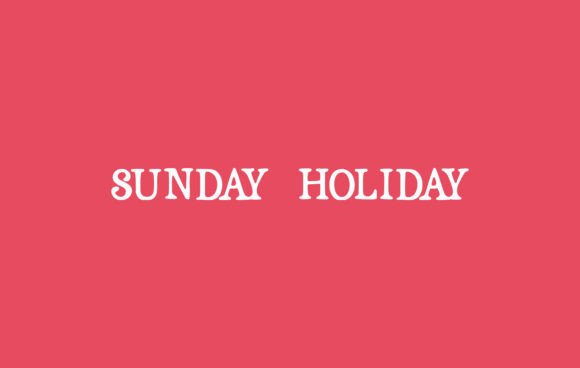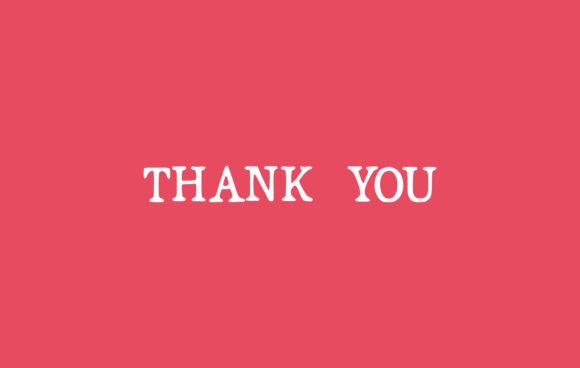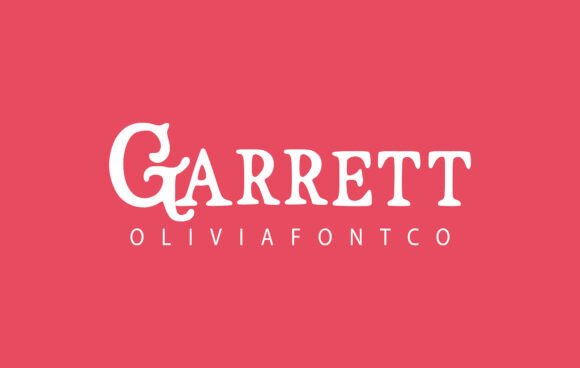
Introducing Garrett Font: The Perfect Serif Font for Creative Projects
Are you a designer or crafter looking for a font that can elevate your creative ideas to new heights? Look no further than the Garrett font, an authentic serif font with a romantic touch that’s sure to become your new favorite. In this article, we’ll explore the features and benefits of the Garrett font, and show you how it can be used to take your designs to the next level.
What is Garrett Font?
Garrett font is a beautifully designed serif font that’s perfect for a wide range of creative projects. Its classic design and romantic touch make it ideal for designs that require a touch of elegance and sophistication. Whether you’re working on a magazine headline, social media post, branding campaign, wedding invitation, or card, Garrett font is the perfect choice.
Key Features of Garrett Font
So what makes Garrett font so special? Here are just a few of its key features:
- Legibility: Garrett font is designed to be highly legible, making it perfect for use as both title and body text.
- Elegant Design: The font’s classic serif design and romantic touch give it a timeless elegance that’s sure to impress.
- Versatility: Garrett font can be used for a wide range of creative projects, from magazine headlines and social media posts to branding campaigns and wedding invitations.
Benefits of Using Garrett Font
So why should you choose Garrett font for your next creative project? Here are just a few of the benefits of using this amazing font:
- Elevate Your Designs: With its elegant design and romantic touch, Garrett font can help take your designs to new heights and give them a professional finish.
- Save Time: Garrett font is highly legible and versatile, making it easy to use for a wide range of projects and saving you time and effort.
- Stand Out from the Crowd: With its unique and elegant design, Garrett font can help your designs stand out from the crowd and grab attention.
How to Use Garrett Font
So how can you use Garrett font in your creative projects? Here are a few ideas to get you started:
- Magazine Headlines: Use Garrett font to create eye-catching headlines for your magazine or blog posts.
- Social Media Posts: Add a touch of elegance to your social media posts with Garrett font.
- Branding Campaigns: Use Garrett font to create a professional and cohesive brand identity.
- Wedding Invitations: Add a romantic touch to your wedding invitations with Garrett font.
- Cards and Stationery: Use Garrett font to create beautiful and elegant cards and stationery.
In conclusion, Garrett font is an amazing serif font that’s perfect for designers and crafters looking to elevate their creative ideas to new heights. With its elegant design, romantic touch, and versatility, Garrett font is the perfect choice for a wide range of creative projects. So why not give it a try and see the difference it can make?